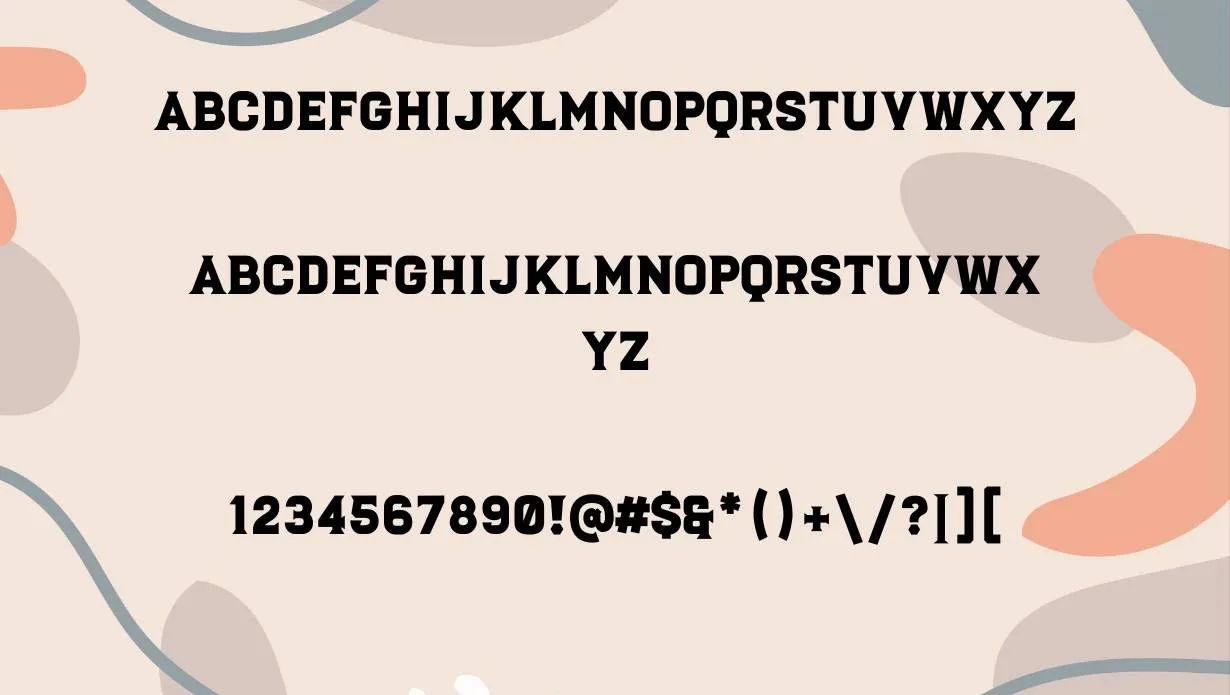
The Luchador Font has a bold and spirited style. Its robust and dynamic letters bring a sense of energy and excitement to any text. This font typically comes in TTF and OTF file formats, ensuring versatility across various design platforms.
| Name | Luchador Font |
| Designer | Daniel Feldt |
It’s often used in designs related to sports or events, adding a touch of vigor and enthusiasm to the writing.